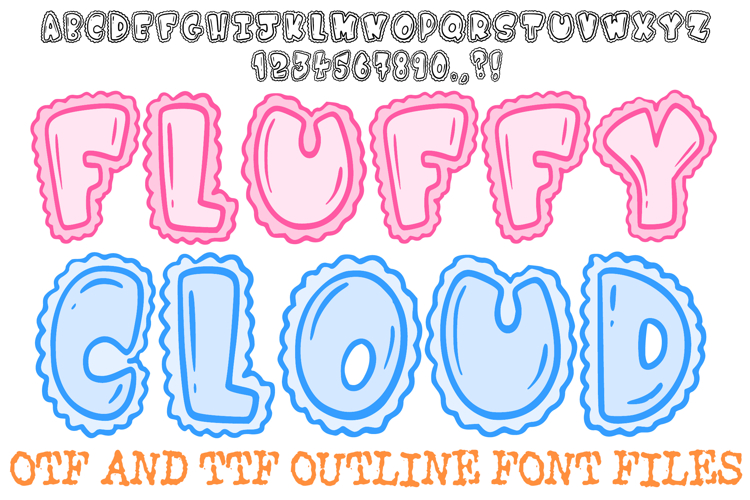
Fluffy Cloud Font Doodle Lettering Bubble Cartoon ABC OTF
Add a dreamy, soft touch to your designs with the Fluffy Cloud Font! This hand-drawn display alphabet features bold, rounded characters encased in a charming, wavy border that mimics the soft silhouette of a cloud. It is the perfect choice for nursery wall art, baby shower invitations, cozy digital scrapbooking, and playful classroom resources.
The scalloped outline provides a striking visual impact, giving your text a dreamy, puffy appearance without losing legibility. Whether you are creating a "sweet dreams" sign or designing stickers for a digital planner, the Fluffy Cloud Font adds a perfect touch of whimsy and cozy charm to your text.
Why Your Designs Will Be Dreamy:
Charming Wavy Borders: Each character is framed by a unique, hand-drawn scalloped border that provides a soft, layered look.
Bold Inflated Letterforms: The thick, rounded block style ensures that your message remains readable even with the detailed outer textures.